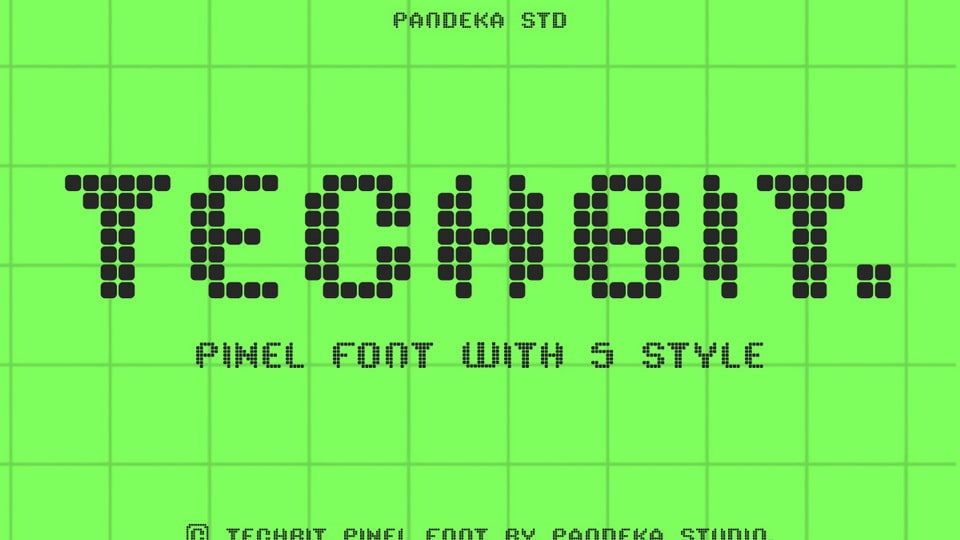
Download Techbit font, a modern pixel typeface designed to bring a clean, digital aesthetic to your projects with its sharp, blocky letterforms and retro pixel-inspired style.